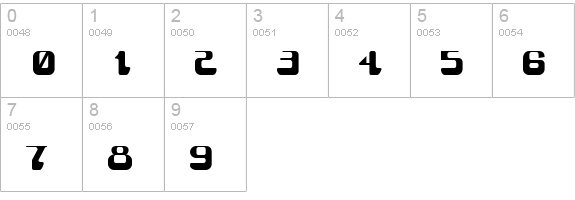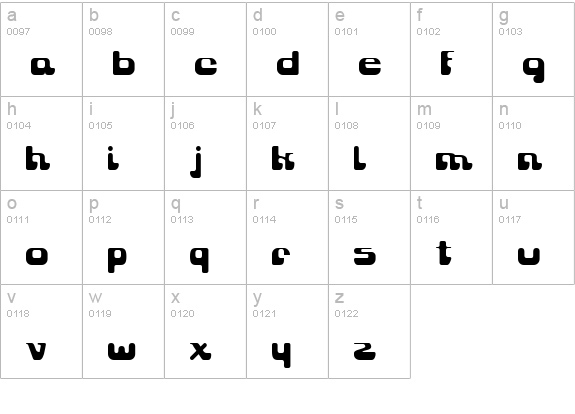
Gravity Sucks Font Details
Introducing Gravity Sucks font, a modern and sleek typeface that defies gravity with its bold and dynamic design. This font exudes a sense of energy and movement, making it perfect for creative projects that demand attention. Gravity Sucks font is versatile and can be used for a variety of design purposes, from branding to posters to digital media. This font is not only visually striking but also incredibly easy to read, making it a great choice for both headlines and body text. Its unique style sets it apart from other fonts, giving your designs a fresh and contemporary look. Best of all, Gravity Sucks font is available for free download at FontsMarket.com. Get your hands on this stunning typeface today and elevate your design projects to new heights!